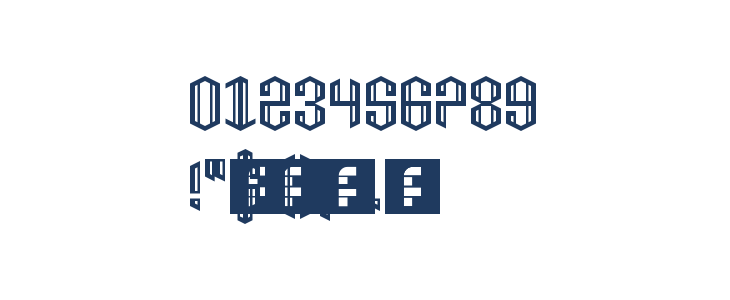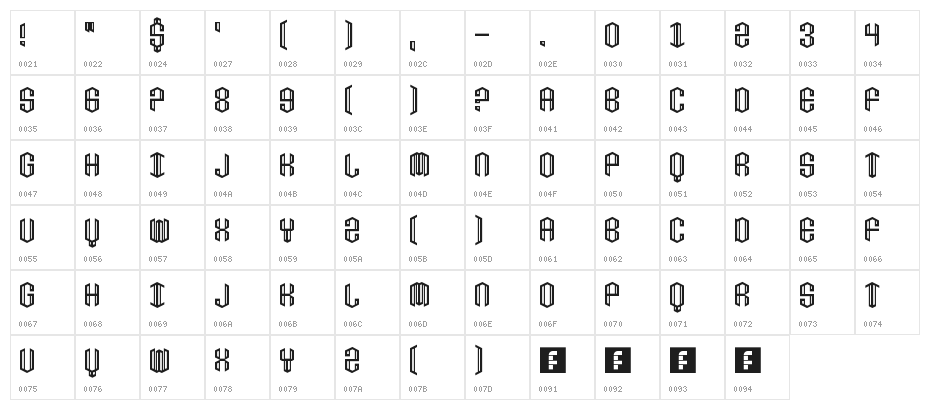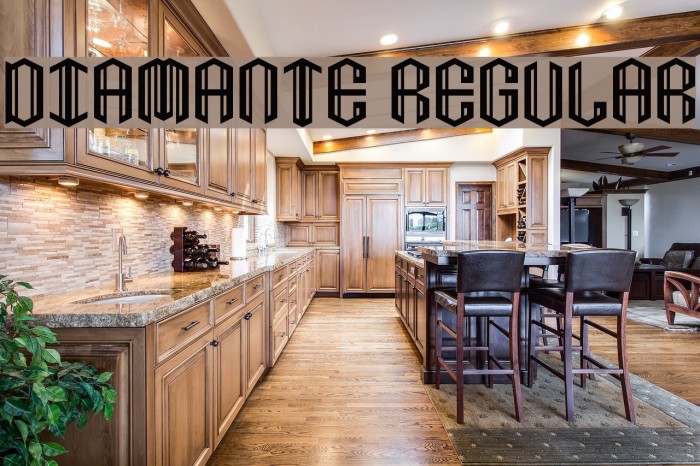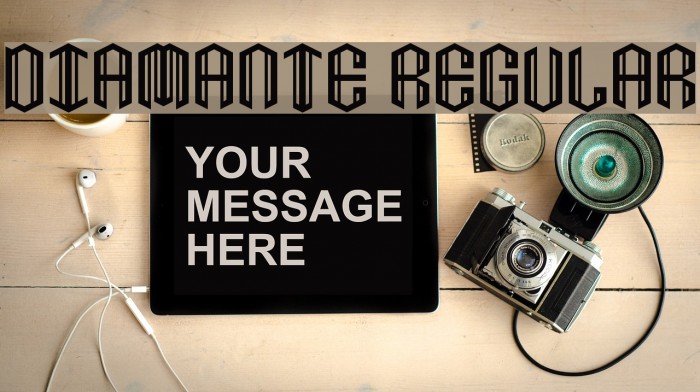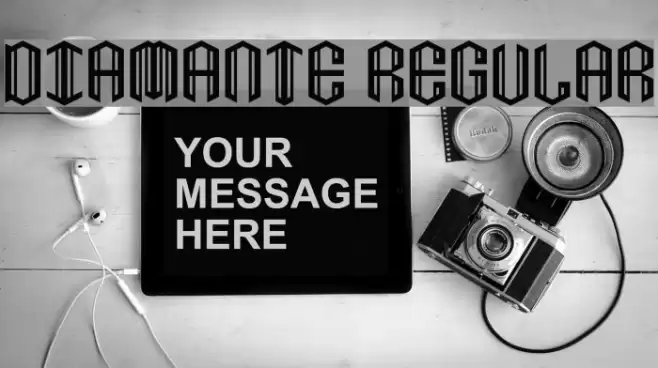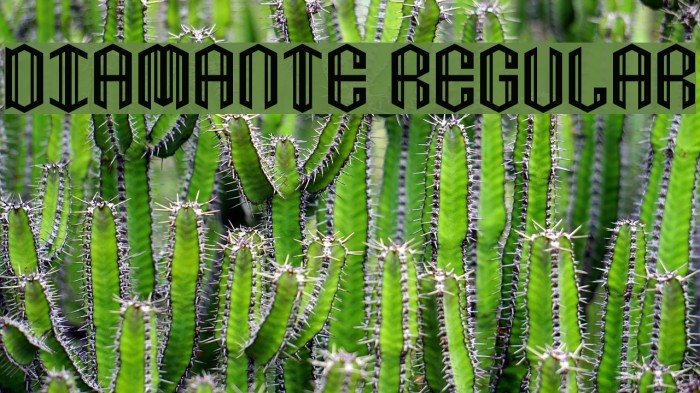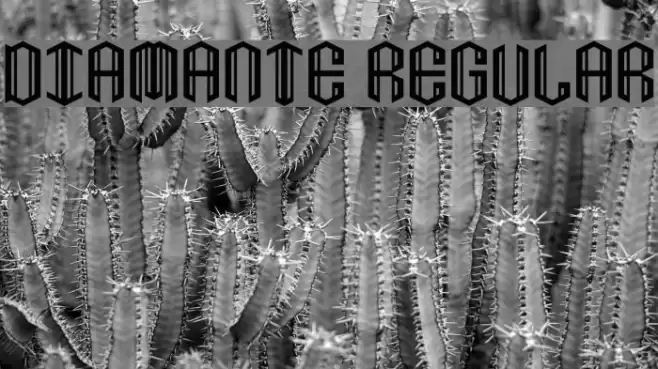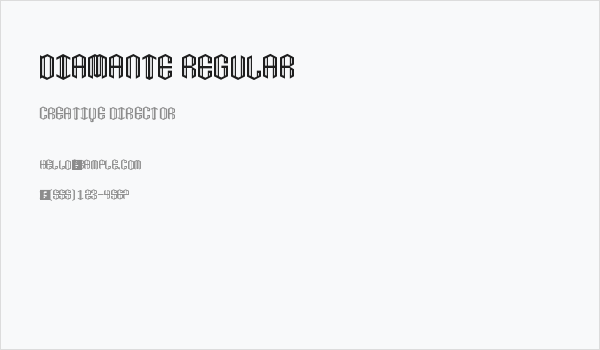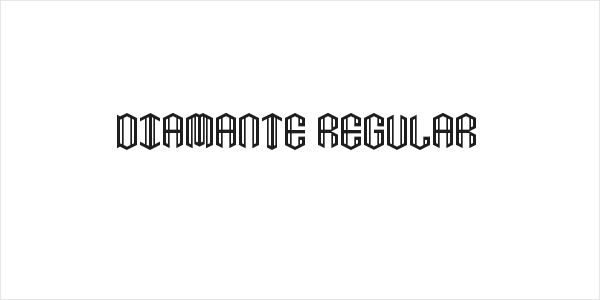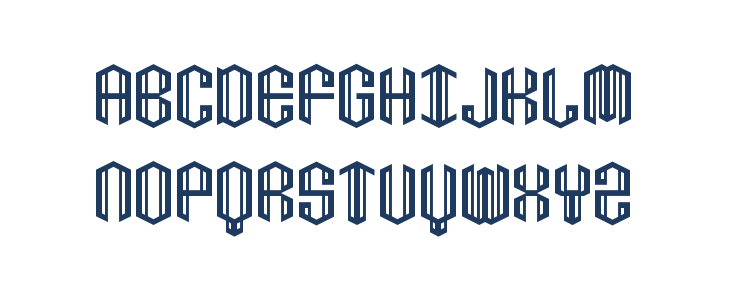
Diamante Regular Font
Diamante Regular Description
This font features a bold, geometric design with a three-dimensional effect, giving it a unique and striking appearance. The characters are constructed with thick lines and angular shapes, creating a sense of depth and structure. The uppercase and lowercase letters maintain a consistent style, with the uppercase letters being slightly more pronounced. The numbers and special characters follow the same design principles, ensuring uniformity across all elements. This font's distinct style makes it ideal for eye-catching designs and creative projects.